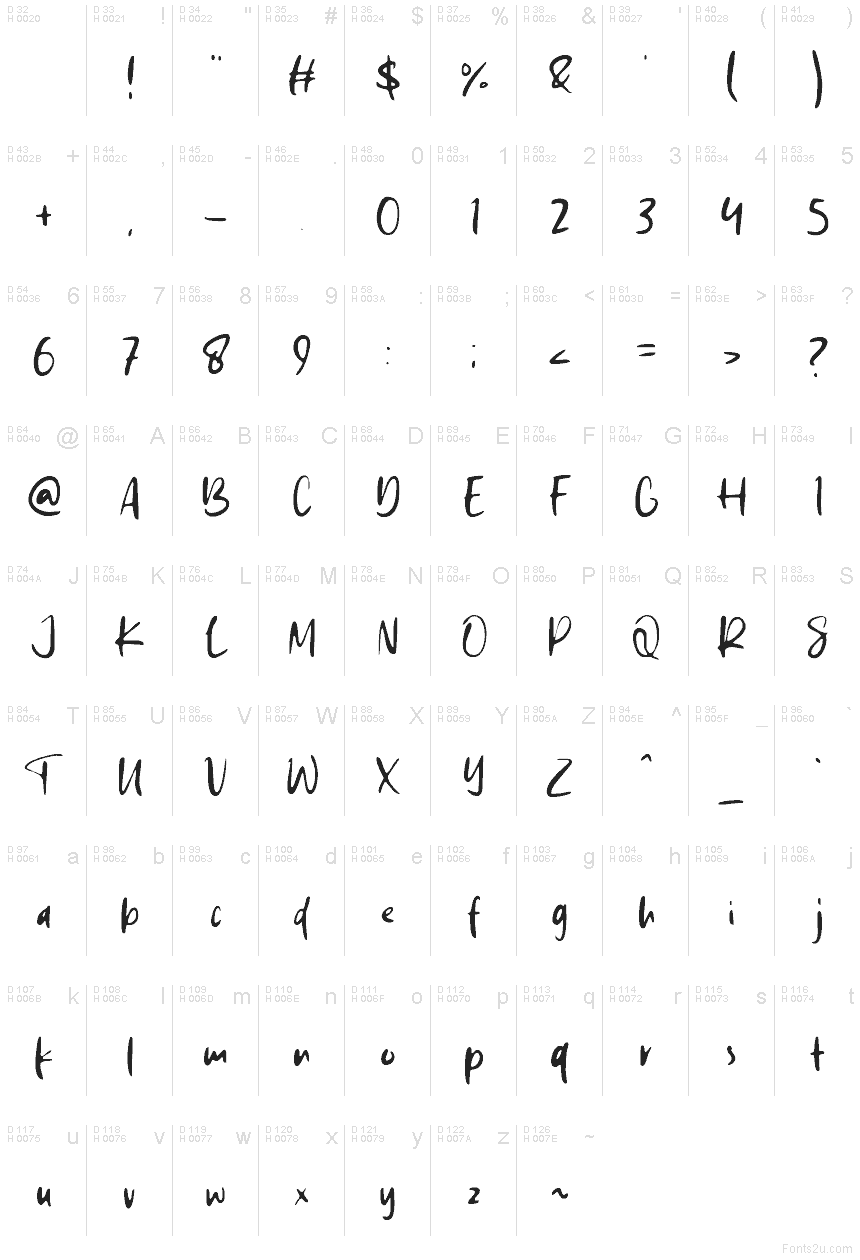
Melting Stories
Melting Stories font by MJType is a free handwritten font that elegantly brings casual, yet expressive vibes. A truly artistic flair is felt when first checking its natural and irregular strokes. The hand-drawn effect of the letters would inspire any designer to use them in a project.
The font’s overall charm makes it suitable for book covers, packaging labels, titles within magazines or newspapers even, visual quotes, invitations for any special occasion, social media visual designs from posts to profile images and covers, brochures (either fronts or inner pages), stickers/labels in different sizes and shapes.